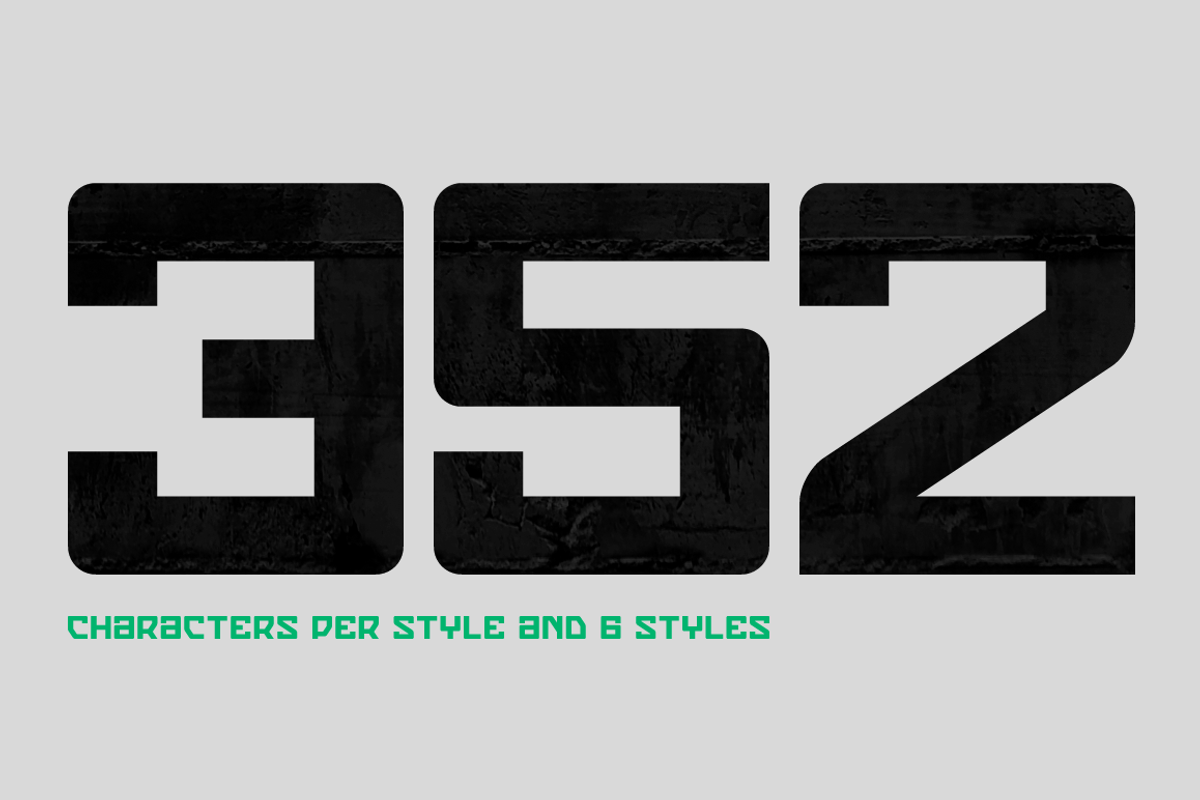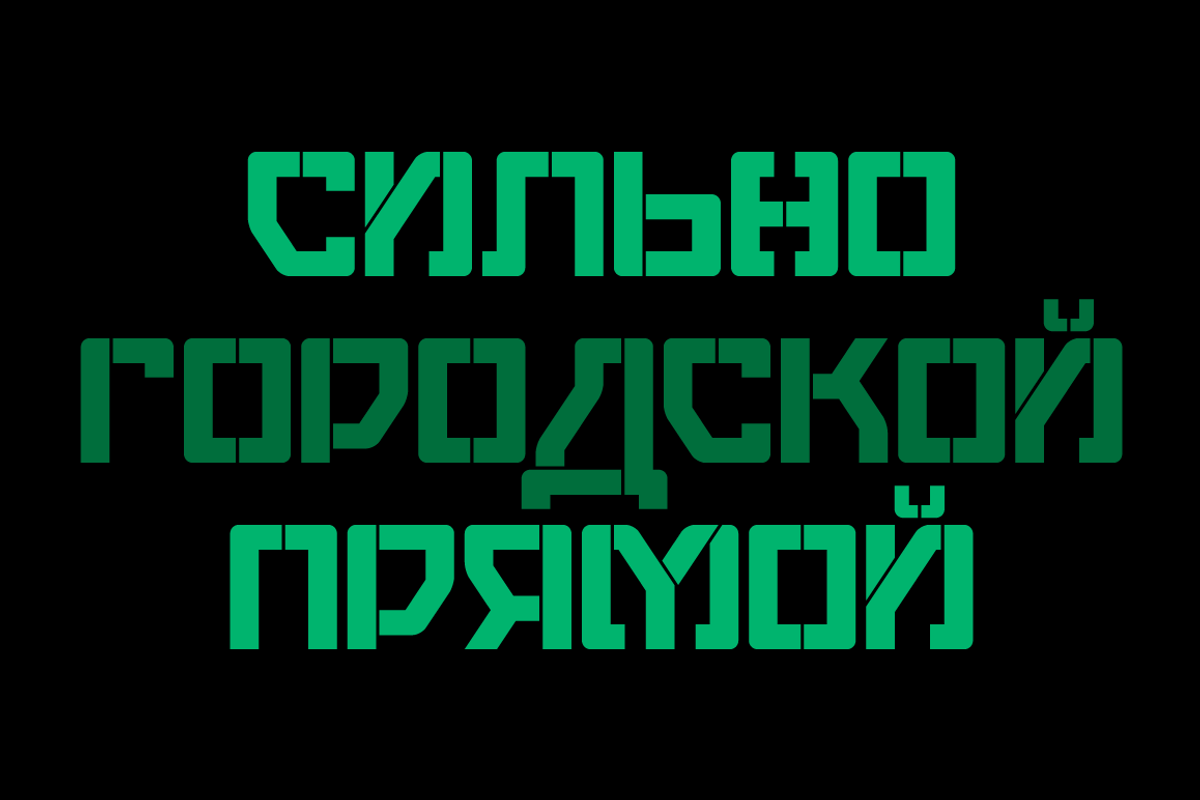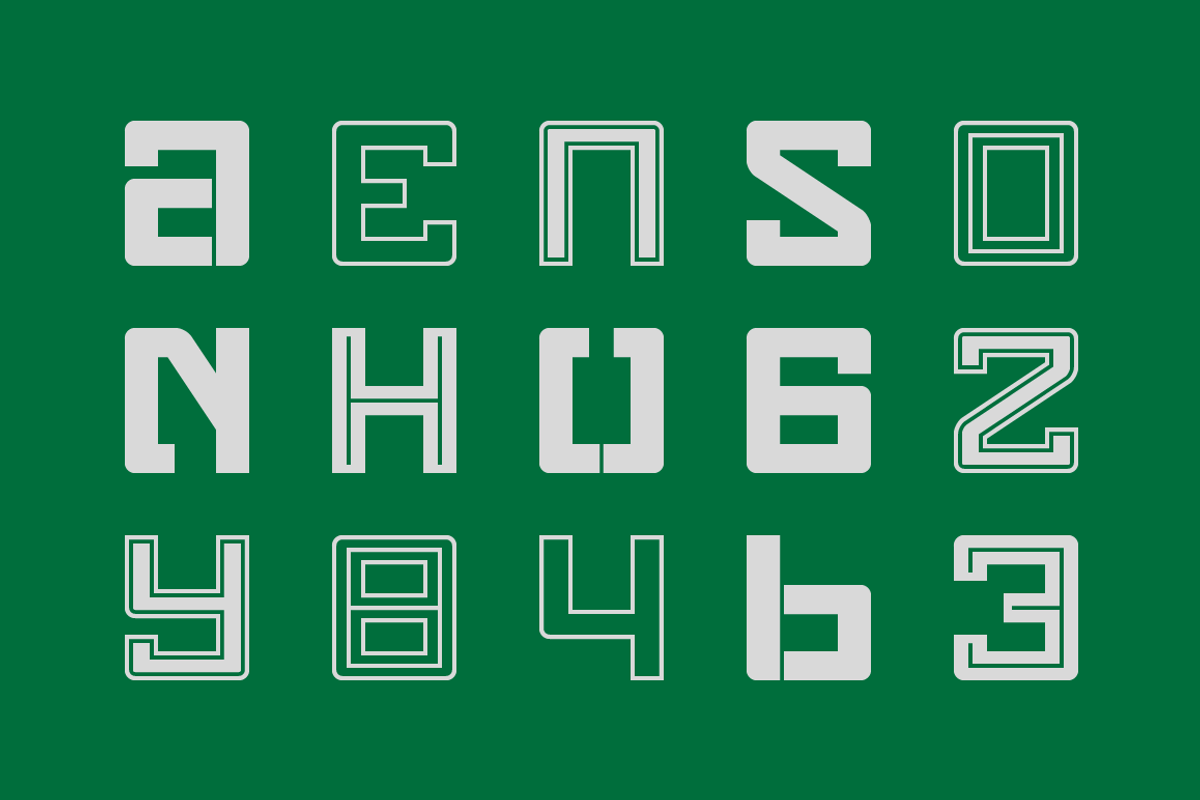
Eslava Font Family
Eslava Font Family by Graviton Font Foundry is a font selected for branding, posters, packaging, typography.
- Eslava Double Line Regular
- Eslava Inline Regular
- Eslava Outline Regular
- Eslava Inline 2 Regular
- Eslava Solid Regular
- Eslava Stencil Regular
Eslava Font Family by Graviton Font Foundry fits naturally into Branding, posters, packaging, typography.